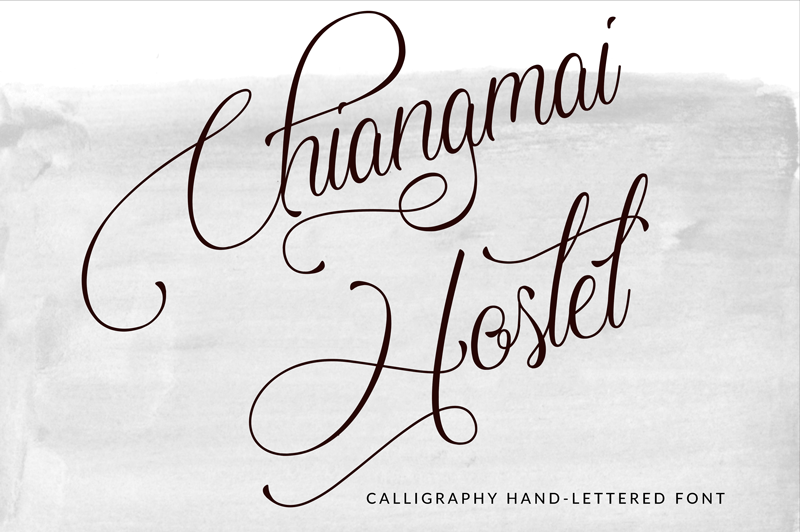
Inkland Script Font
Continue to be a new handwritten font. Introducing Inkland! It is designed by Typhoon Type – Suthi Srisopha. Inkland font is a signature decorative font with which you can achieve a handwritten-type lettering feeling. Inkland is perfect for wedding invitations, branding, stationery, blog design, custom art, custom stamps, custom embossers, or any design purpose. You can use it for your personal use, or for a commercial project.